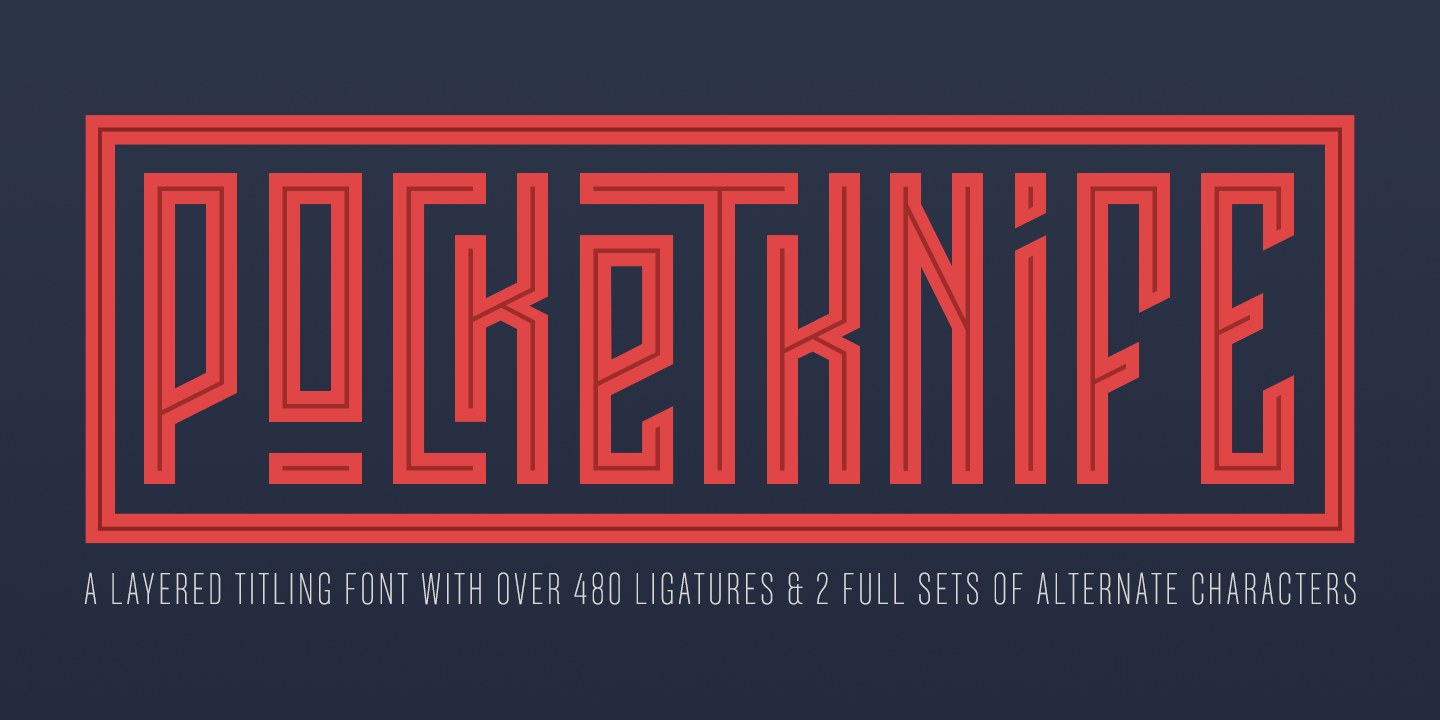
Please note, you must purchase this font for commercial use. You can download Pocketknife Font Free Download for testing purposes and explore its rugged, adventurous design. Pocketknife Font is perfect for outdoor branding, adventure projects, posters, and any design that requires a bold, industrial look.
With its strong, sturdy character and unique style, Pocketknife Font adds a touch of toughness and durability to your creative work. It’s ideal for projects that need to convey strength and ruggedness, whether for logos, product packaging, or promotional materials.
Pocketknife Font Free Download supports multilingual characters, making it versatile for global projects. Its bold and legible design ensures clarity, making it suitable for both large-scale and detailed designs in digital or print formats.